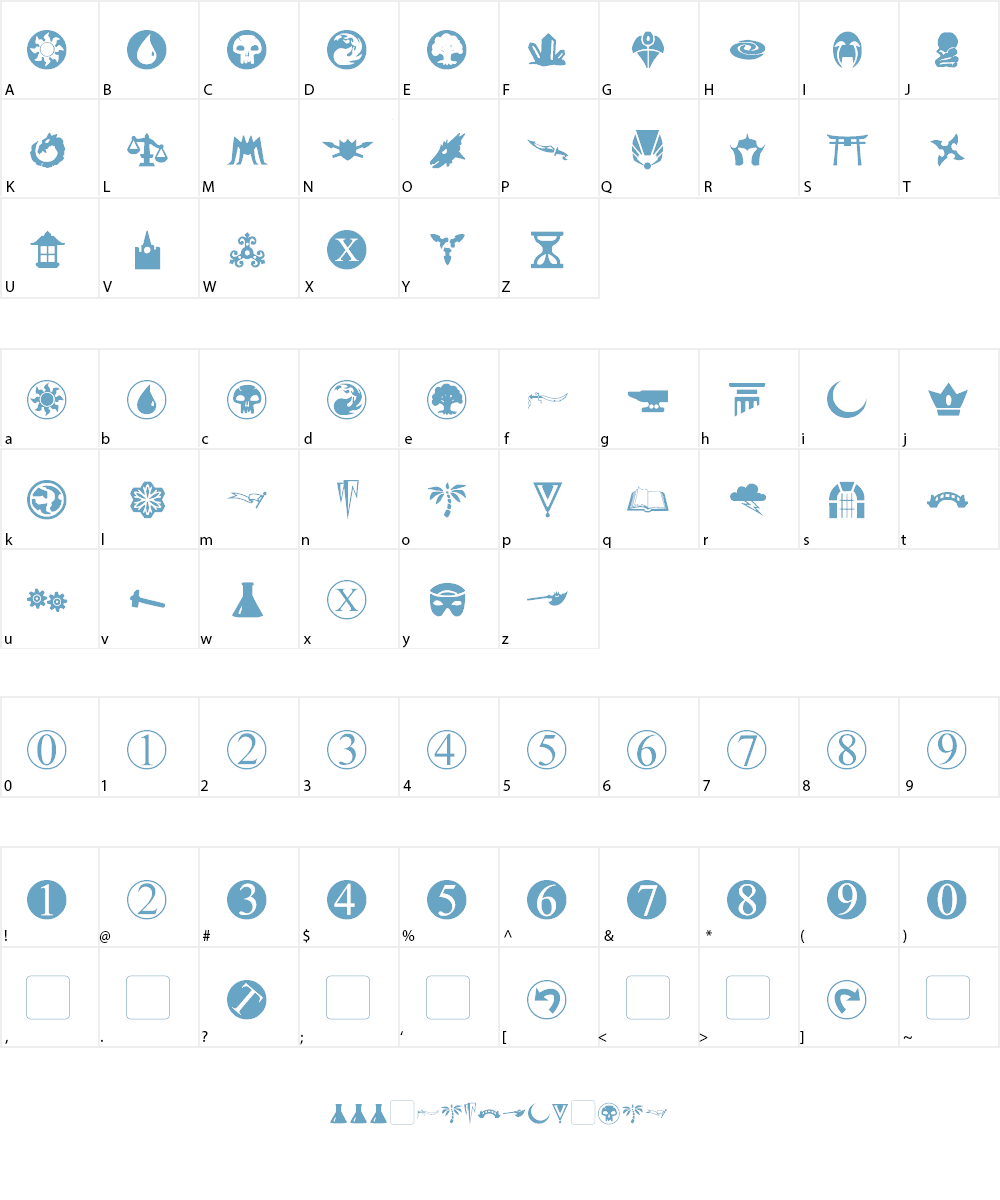
Planewalker Dings is the companion piece of the Planewalker font, and includes many marks and symbols based on those found in Wizards of the Coast's Magic: The Gathering card game, such as mana, token count, and numerous expansion symbols.